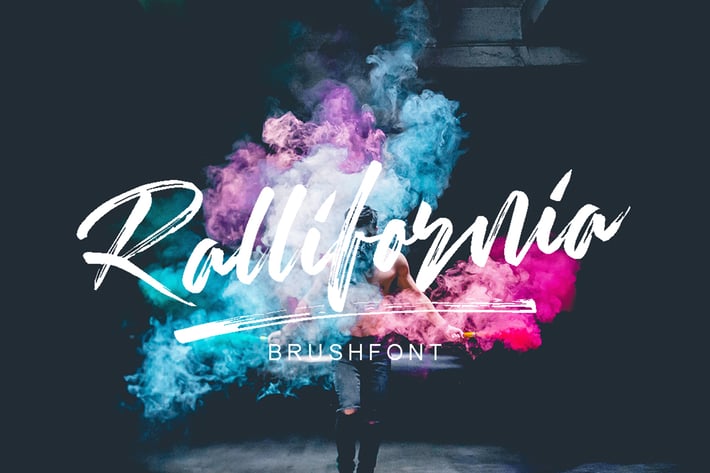
Rallifornia Brush Font
Pineungtype
Rallifornia is modern Brushfont, with modern Brush style, this font will perfect for many different project ex: quotes, logo, blog header, poster, wedding, banding, fashion, apparel, letter, invitation, stationery, etc...